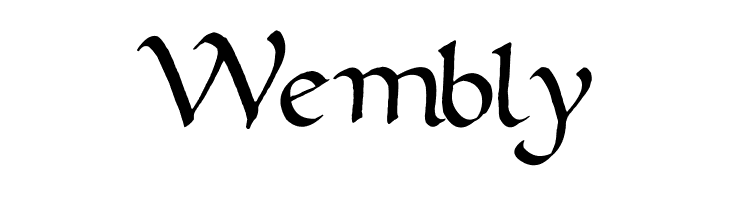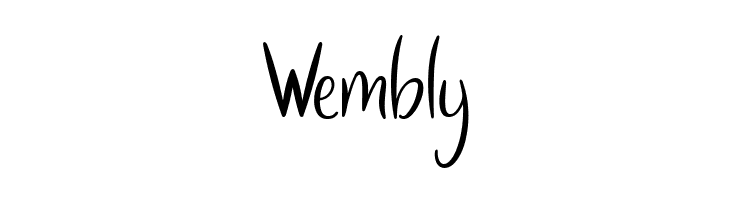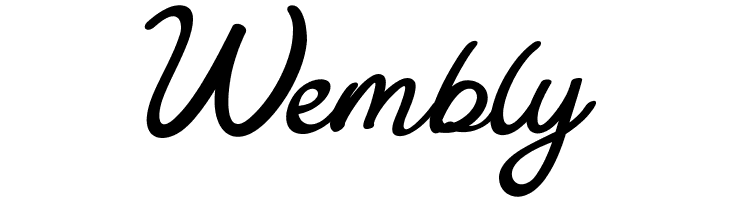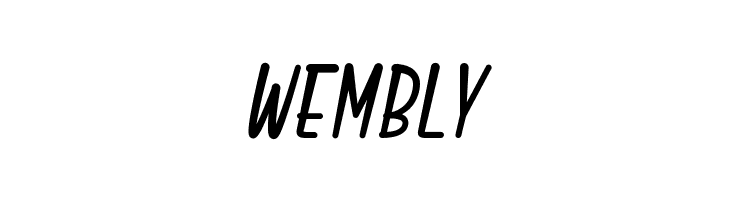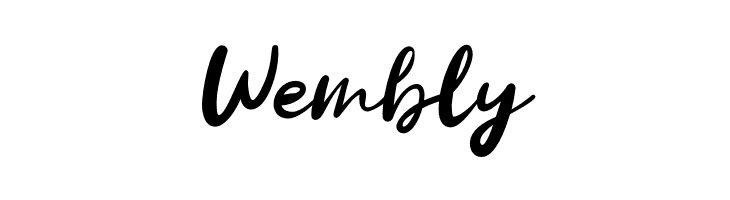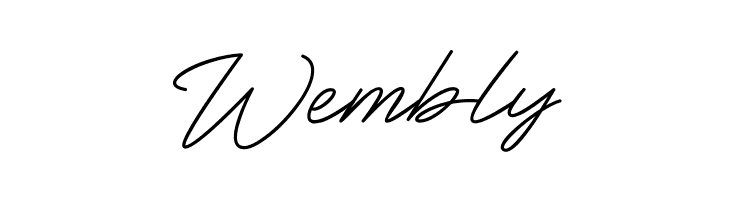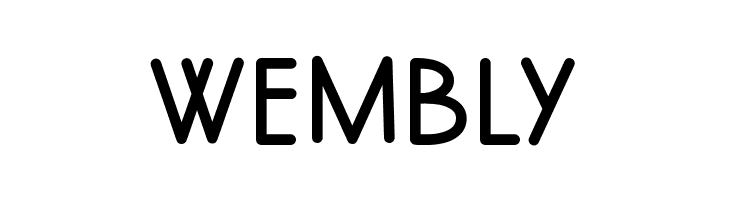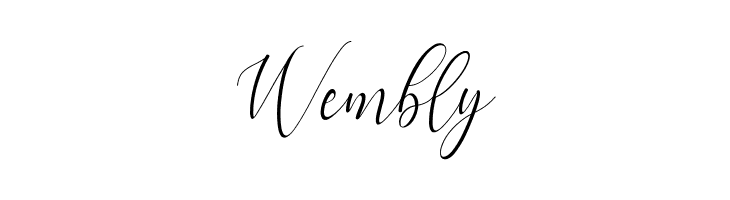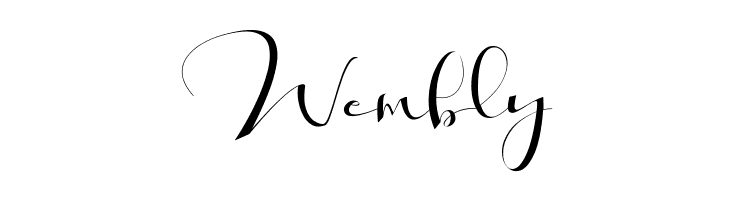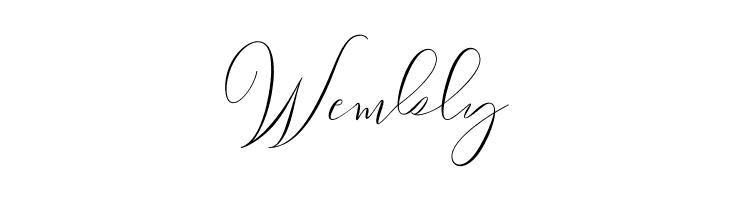
A collection of vintage-style, distressed icons and symbols with a grunge texture.
A graceful and elegant script font with flowing, cursive lines.
An elegant script font with flowing, interconnected letters and high contrast strokes.
An elegant script font with flowing, interconnected letters and refined details.
An elegant script font with flowing, interconnected letters and ornate flourishes.
A festive decorative font featuring characters within holly-adorned bells.
A tall, narrow font with a geometric and modern style.
A whimsical and playful font with decorative curves and swirls.
A bold, geometric serif font with high contrast and a vintage-modern style.
A modern vintage font with tall, narrow letterforms and decorative serifs.
A classic, calligraphic font with medium contrast and elegant, flowing strokes.
A classic, calligraphic font with ornate serifs and elegant curves.
A festive font with Christmas tree-shaped letters and holiday-themed decorations.
A fluid and elegant script font with a dynamic handwritten style.
A playful, handwritten-style font with slanted characters and consistent stroke thickness.
A playful font with characters inside balloon shapes, perfect for festive designs.
A lively, cursive script font with interconnected letters and a natural handwriting style.
An elegant script font with flowing, cursive letterforms and graceful curves.
A playful and whimsical font with decorative serifs and rounded forms.
A sophisticated script font with elegant, flowing cursive strokes.
An elegant, flowing script font with a handwritten signature style.
A decorative ribbon-themed font with elegant, cursive lowercase letters.
A bold, flowing script font with elegant curves and decorative flourishes.
A bold, playful font with rounded edges and a slightly condensed style.
An elegant, flowing script font with a sophisticated and graceful style.
A playful and elegant script font with a handwritten style.
A playful, bold font with rounded edges and a hand-drawn style.
A playful, modern handwritten font with bold, rounded characters.
A whimsical and bold font with playful curves and swirls.
A bold, decorative font with filled, outlined characters for a striking look.
A playful and whimsical script font with elegant loops and curls.